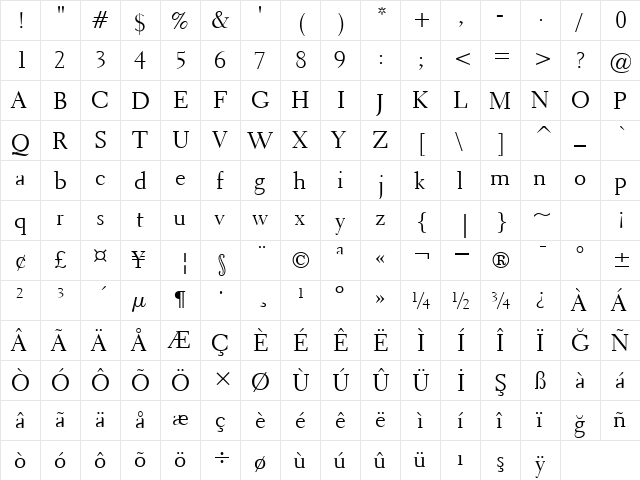
00900 Regular
00900 offers clean, dependable letterforms without strong stylistic allegiance, making it a practical choice for designers who need flexibility.